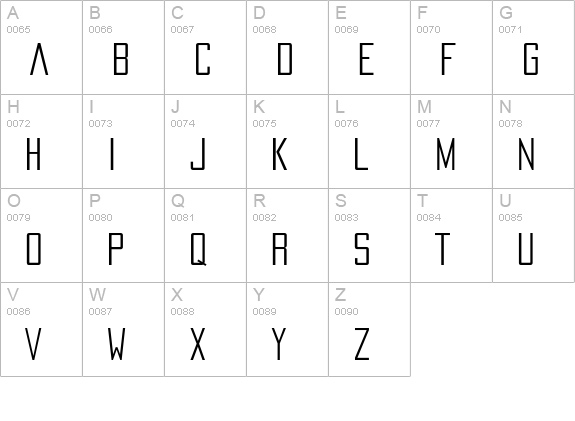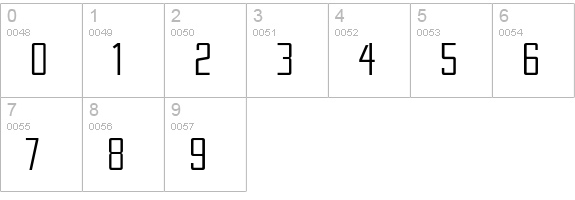
PacificaCondensed Font Details
PacificaCondensed is a sleek and modern font that exudes elegance and sophistication. With its condensed letterforms and clean lines, this typeface is perfect for creating eye-catching headlines, logos, and branding materials. Whether you're designing a sleek website, a stylish magazine layout, or a sophisticated packaging design, PacificaCondensed is sure to make a lasting impression. This font features a unique balance between sharp corners and smooth curves, giving it a contemporary and polished look. Its condensed proportions allow for efficient use of space without compromising legibility, making it ideal for projects that require a compact yet impactful design. What sets PacificaCondensed apart is that it is freely available to download at FontsMarket.com. This means that you can access this exceptional font without any cost, making it a valuable asset for both personal and commercial projects. Whether you're a seasoned designer or just starting out, PacificaCondensed offers a professional and high-quality typography solution that won't break the bank. With PacificaCondensed, you have the freedom to unleash your creativity and bring your design visions to life. Its versatility and timeless aesthetic make it suitable for a wide range of applications, from print materials to digital designs. So why wait? Download PacificaCondensed today and elevate your projects with this exceptional font.